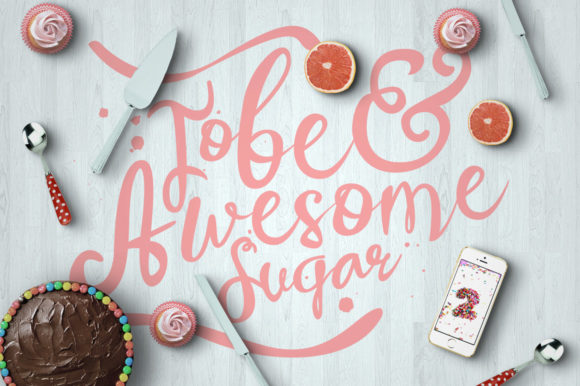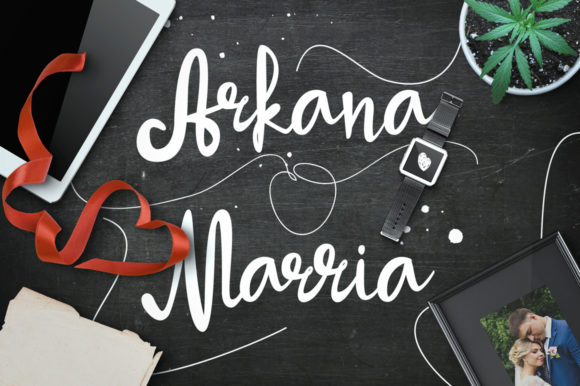
HomeScript FontsSobbers Font Script Fonts Sobbers Font FacebookXPinterestWhatsApp Sobbers Font Poster 2 Sobbers Font Poster 3 About Sobbers Font Sobbers is a sweet font that will lend your designs and authentic and handmade feel! DOWNLOAD NOW People also explored Menlawai Font Hayasaka Font Yellowstone Font Ilovera Font Evangelia Font Samoa Crab Font Alestraza Font Nightclub BTN Outside Font 368 0 TagsSobbers Font Previous articleKarenina FontNext articleFantastic Script Font LEAVE A REPLY Cancel reply Comment: Please enter your comment! Name:* Please enter your name here Email:* You have entered an incorrect email address! Please enter your email address here Website: Save my name, email, and website in this browser for the next time I comment. Personal Use Free Breakaway Personal Use Free Read more about this font Monofonto Personal Use Free Read more about this font Winter Soldier Personal Use Free Read more about this font Street Cred Personal Use Free Read more about this font BLOG To increase your work productivity, choose the most readable fonts. In today's fast-paced work environment, where digital communication and information consumption are integral to our daily routines, the choice of fonts can significantly impact... How to Cut Any Font on Cricut: Convert a Font to SVG (Free) Using Fonts in Digital Marketing: Tips to Strengthen Your Brand Identity Elegant Wedding Invitation Fonts – Handwritten & Script Fonts